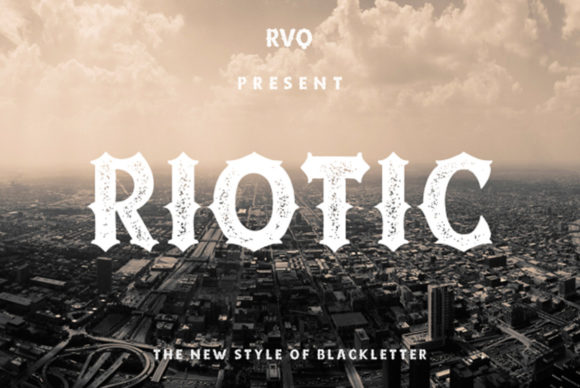
Prepare yourself to be mesmerized by the grandeur of Riotic, a mesmerizing blackletter font, meticulously designed by the talented Rvq Type Foundry. This awe-inspiring font exudes an aura of regality and power, transforming your creations into captivating masterpieces. Step into a realm of endless possibilities as you witness Riotic breathe life into your bold embroidery projects.
With Riotic's firm strokes and striking presence, your embroidered designs will command attention, leaving an indelible mark on the beholder. Its intricate details and flowing lines intertwine seamlessly, creating a visual symphony that captivates and enchants. Unleash your creativity and let Riotic's boldness amplify your artistic vision.
Whether you're an embroidery enthusiast seeking to elevate your craft or a seasoned designer yearning for a font that commands attention, Riotic is your muse. Its regal demeanor adds a touch of sophistication to monograms, while its playful side lends itself perfectly to whimsical illustrations. Let Riotic guide you on a journey of artistic exploration, pushing the boundaries of your imagination.
As you stitch your designs with Riotic, feel the energy and passion coursing through your veins. This font is more than just a collection of letters; it's an expression of your individuality, a reflection of your unique style. Let Riotic be your artistic compass, propelling you towards new heights of creativity.
Embark on an extraordinary embroidery adventure with Riotic as your steadfast companion. Its bold strokes and undeniable charm will transform your projects into works of art, captivating audiences with their sheer brilliance. Seize the opportunity to own this remarkable font and elevate your embroidery skills to new realms of excellence.